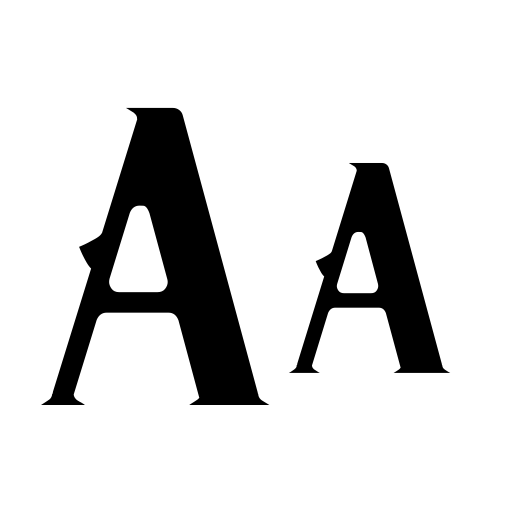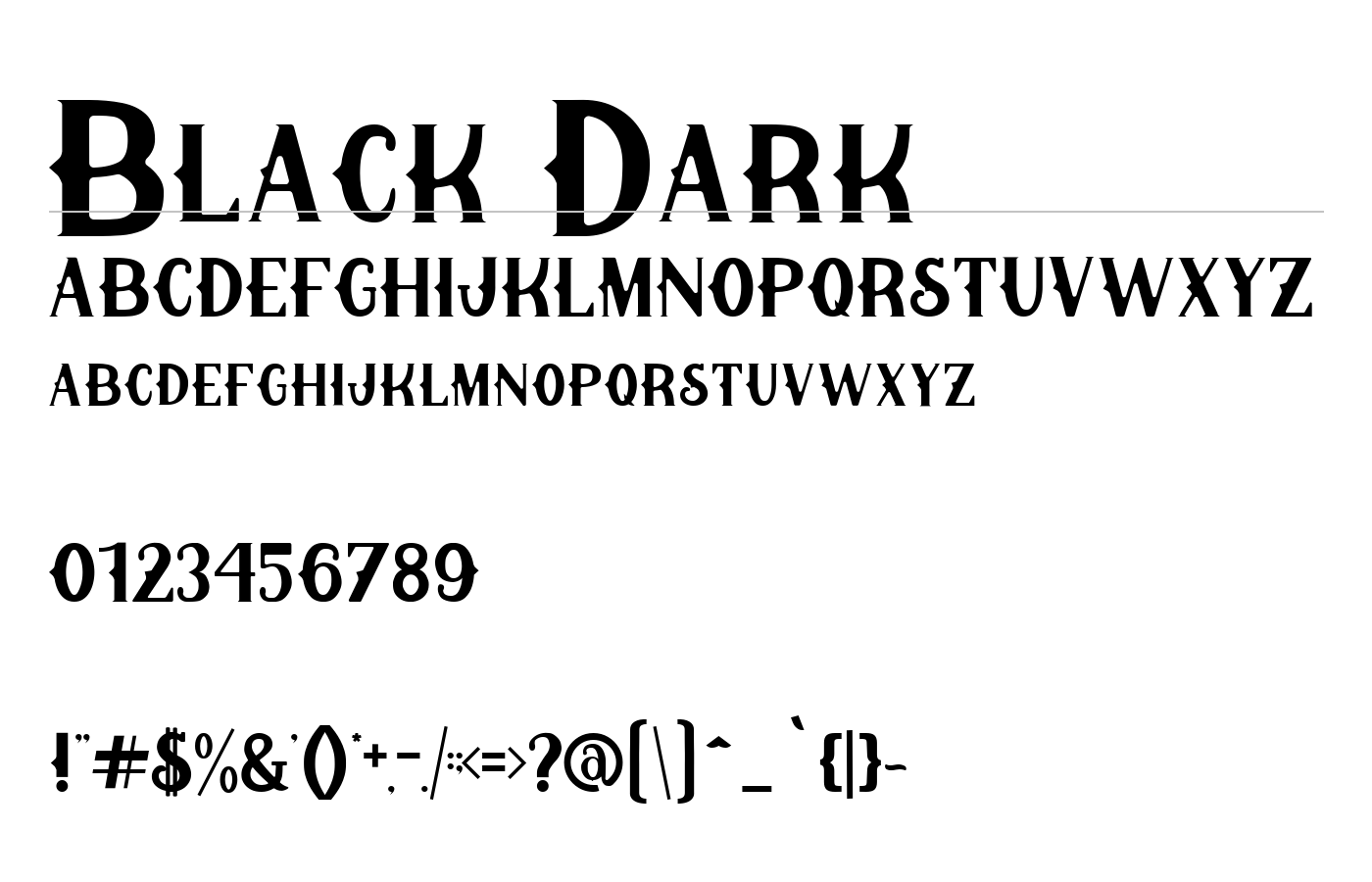
Black Dark is a bold, condensed serif font with a strong vintage character, featuring sharp, bracketed serifs and high contrast between thick and thin strokes. Its distinctive letterforms, with unique details like the spiked edges and varied stroke widths, give it a dramatic and eye-catching presence, ideal for logos, posters, and headlines that demand a bold, classic yet edgy look. This font works well in designs that want to evoke a sense of strength and timeless style with a touch of gothic flair.
Black Dark Font
About Black Dark Font
| Font family | Black Dark Font |